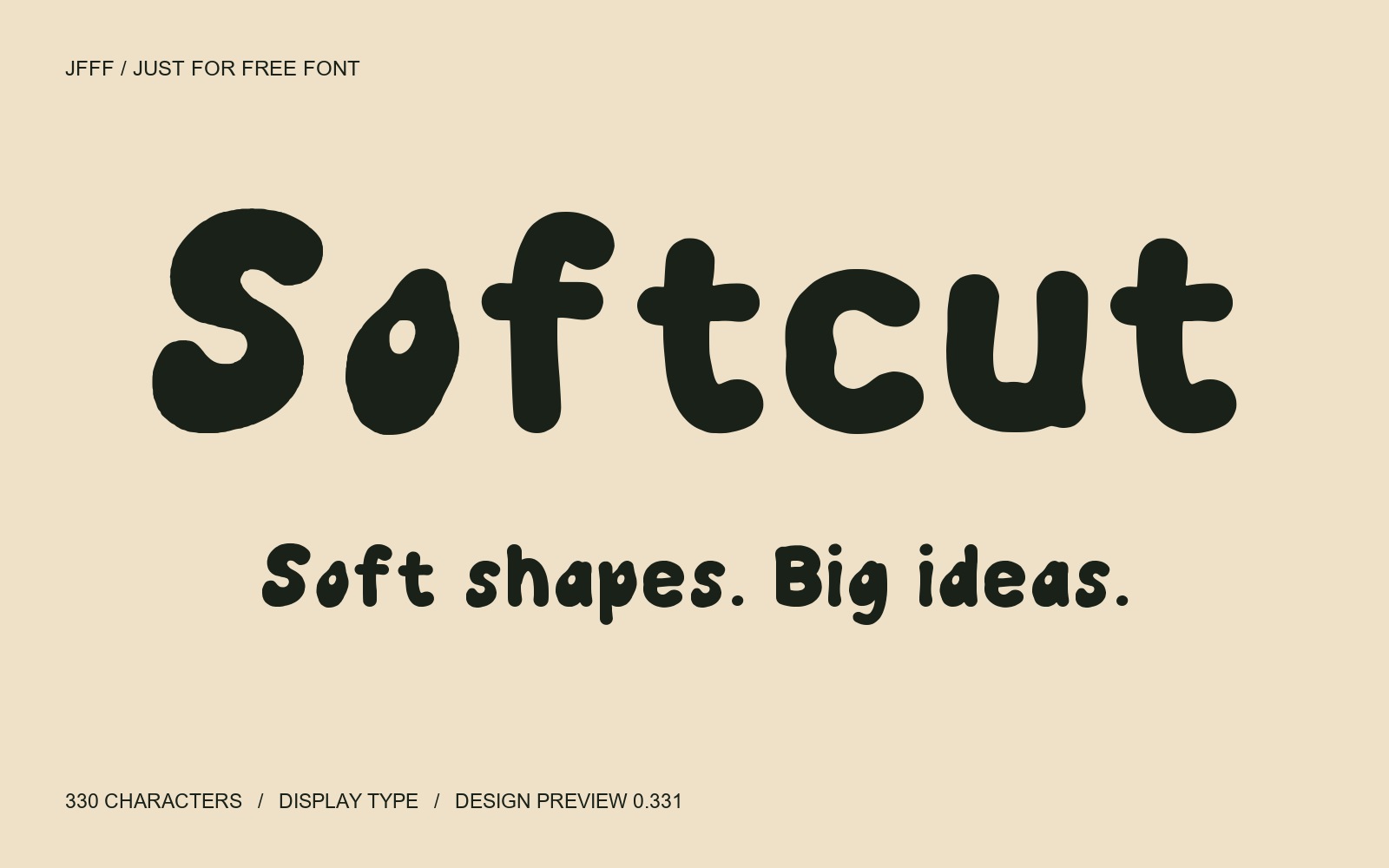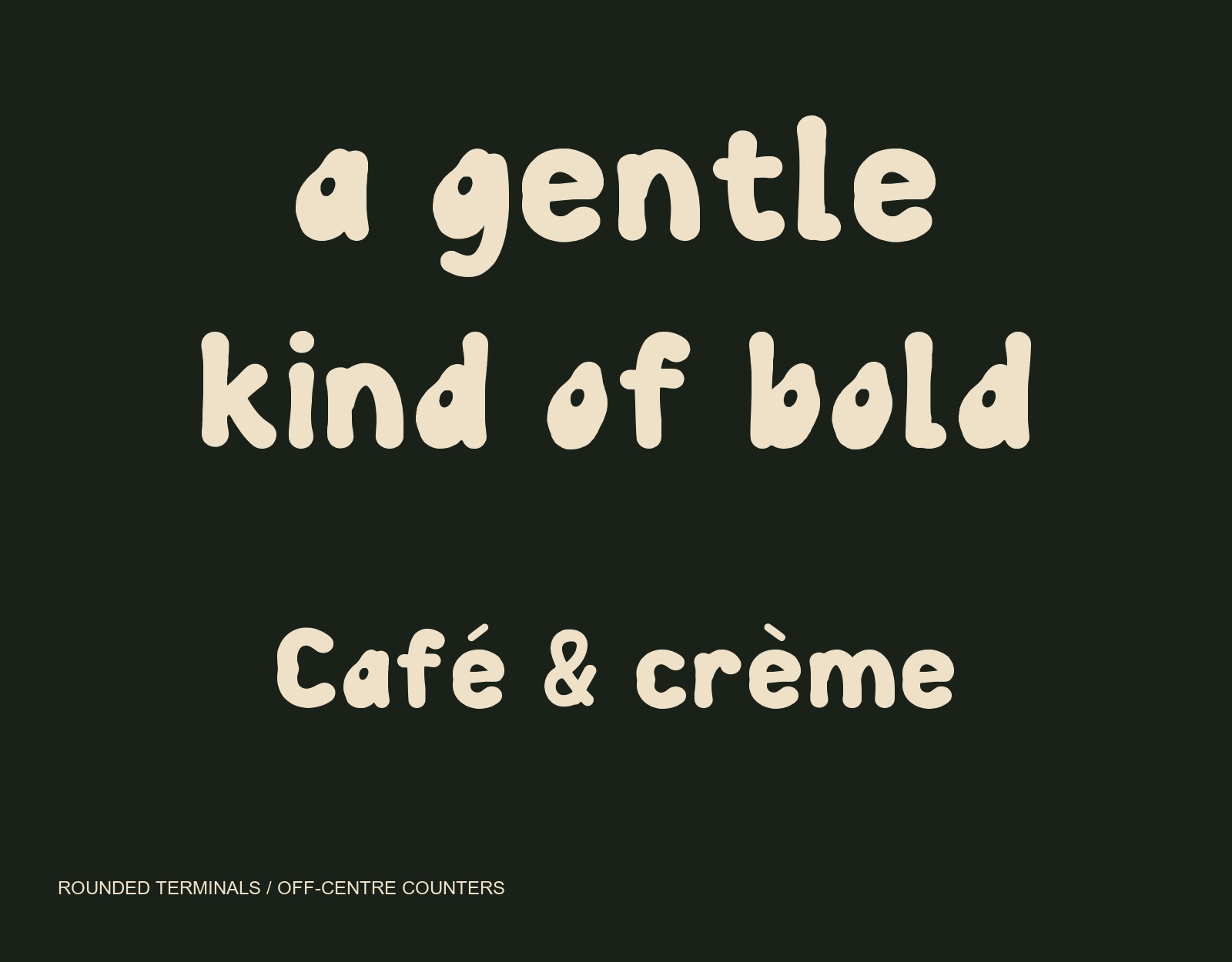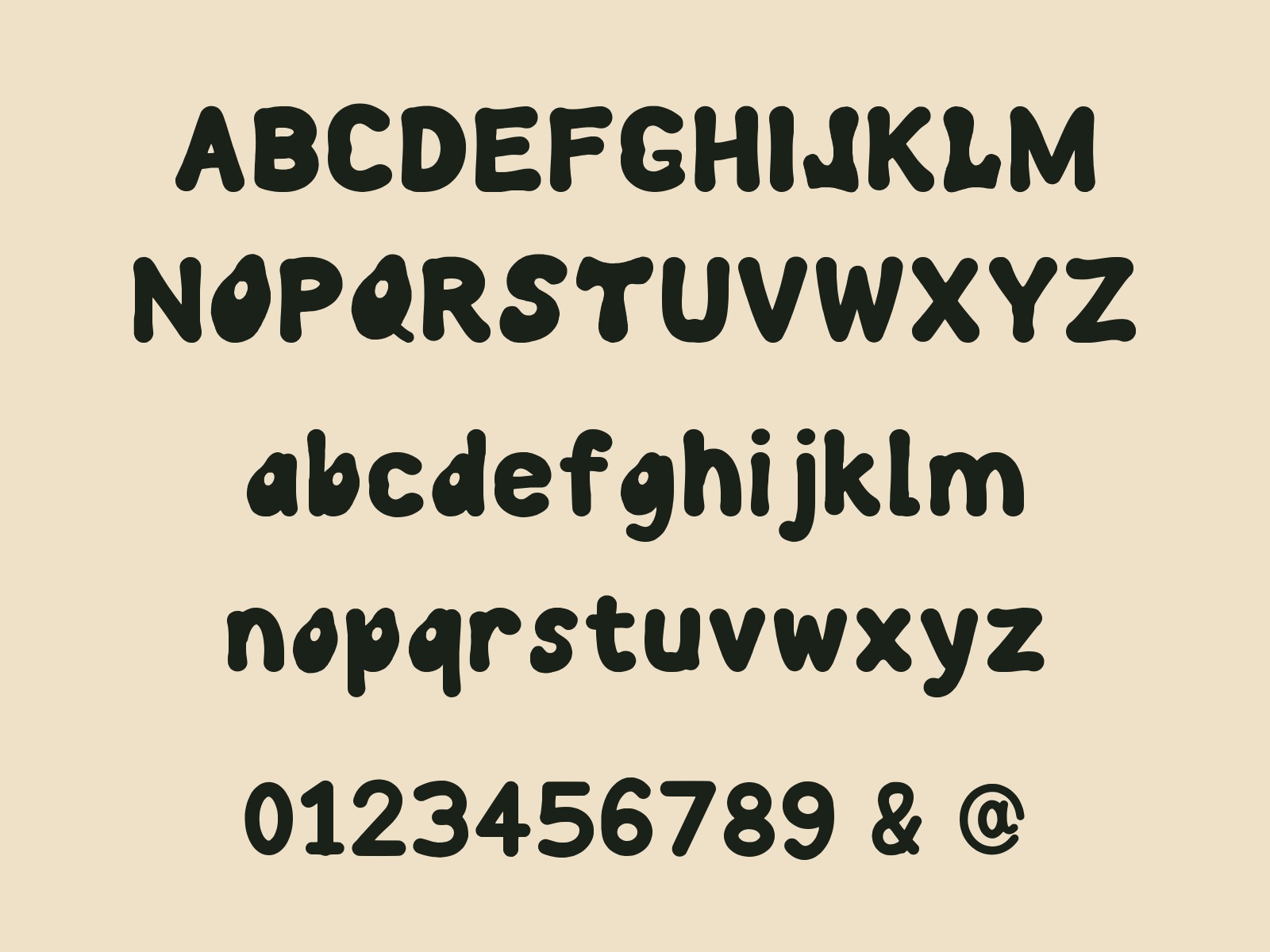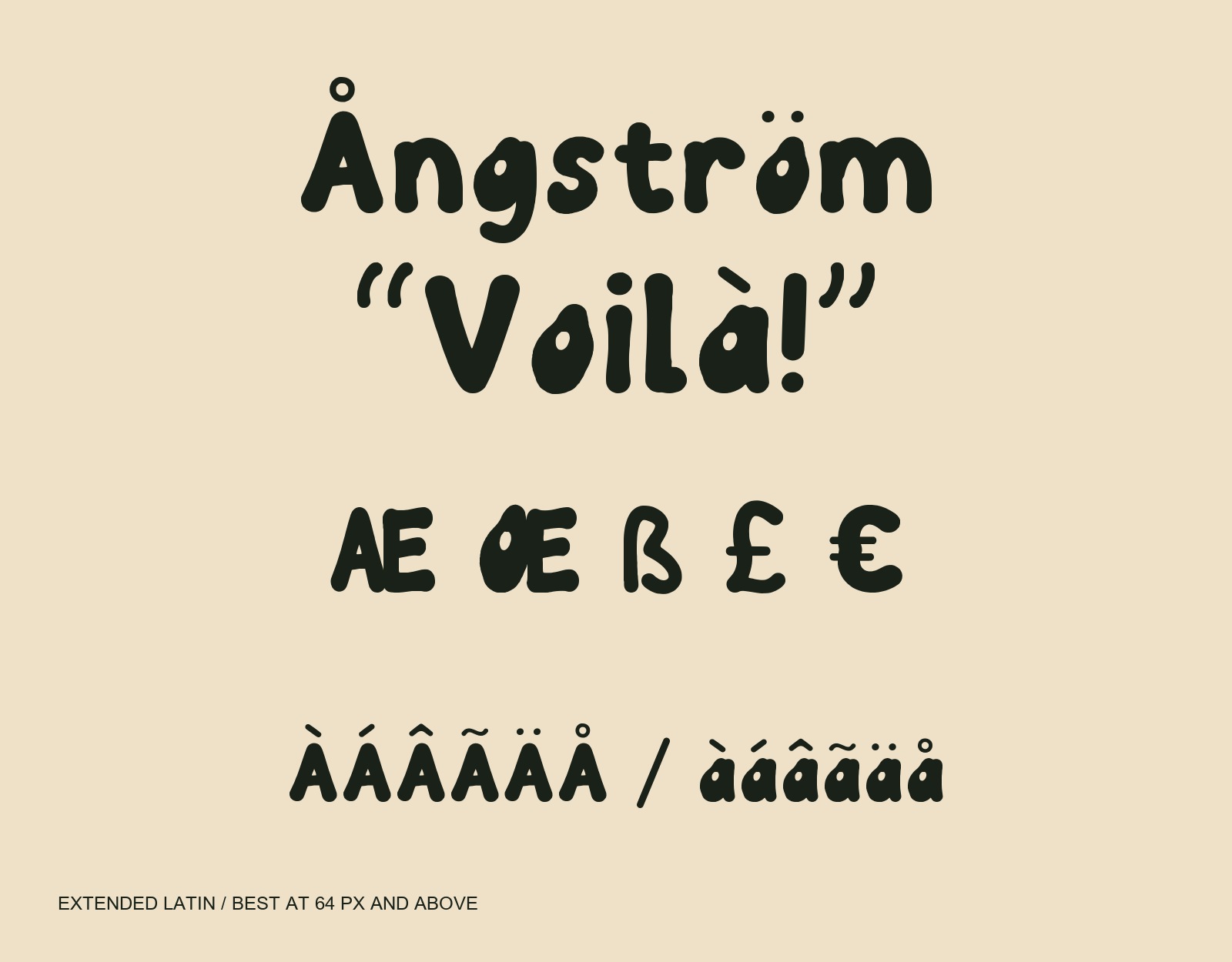
Free high-contrast serif font
Latin only. No Hangul.
Design Preview 0.331. Softcut is a chunky, organic display font with swollen terminals, soft waists and small, off-centre counters. Includes 330 encoded characters (328 excluding space and no-break space): uppercase, lowercase, figures, punctuation and extended Latin. Design Preview 0.331 is intended for short headlines, posters and playful packaging at 64 px or larger. The download contains a TTF and SIL OFL 1.1 license for free personal and commercial use. Small text, native editing-app installation and language-native editorial checks remain outside the completed review. Use precomposed (NFC) accented text. Specimen colors are illustrative; the font itself is monochrome.